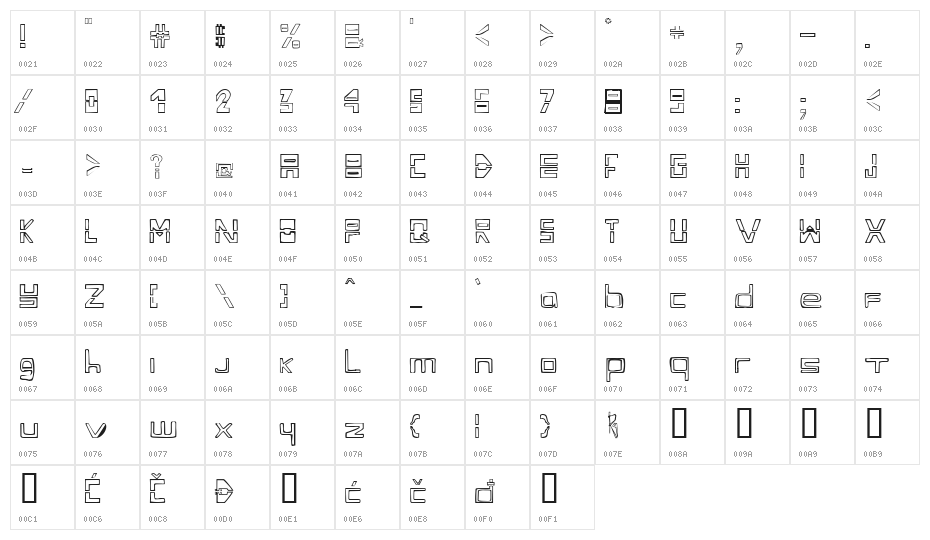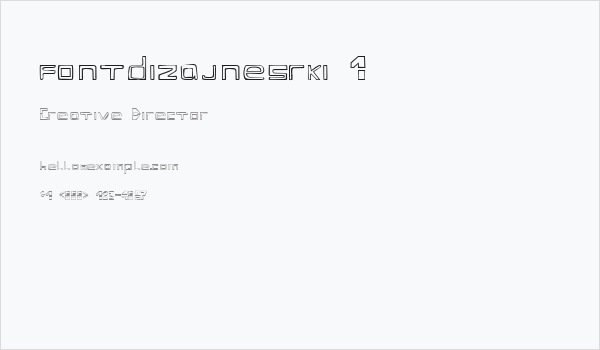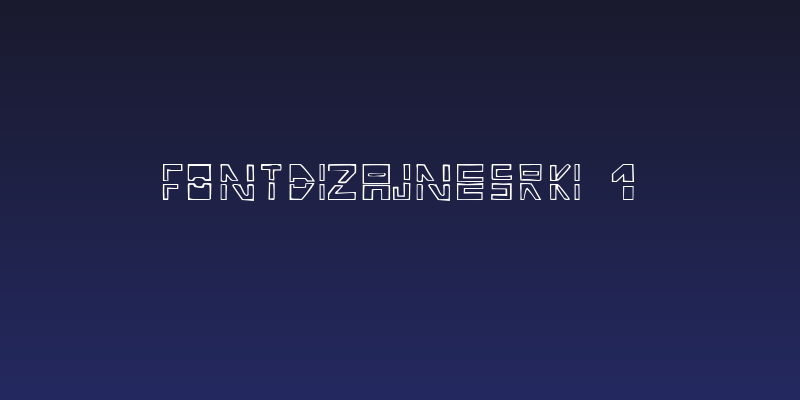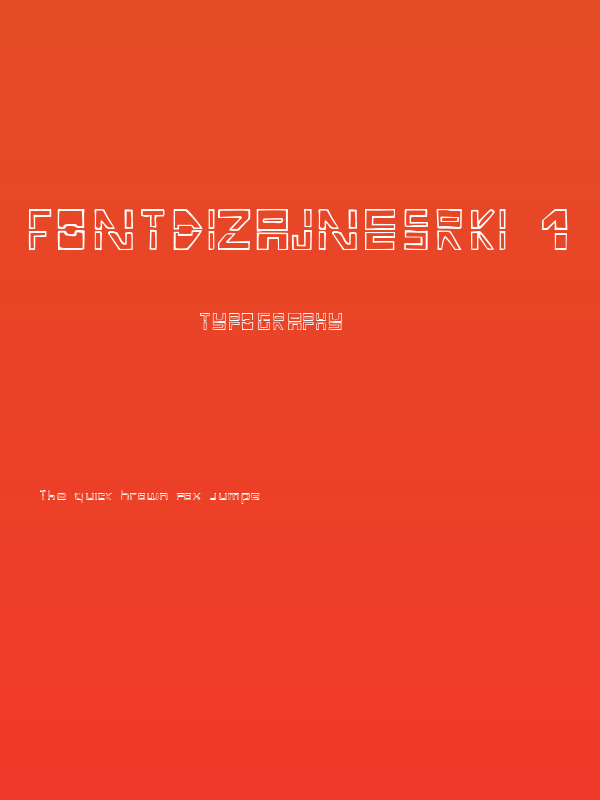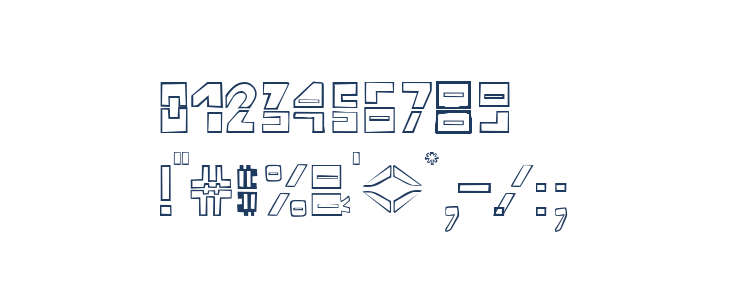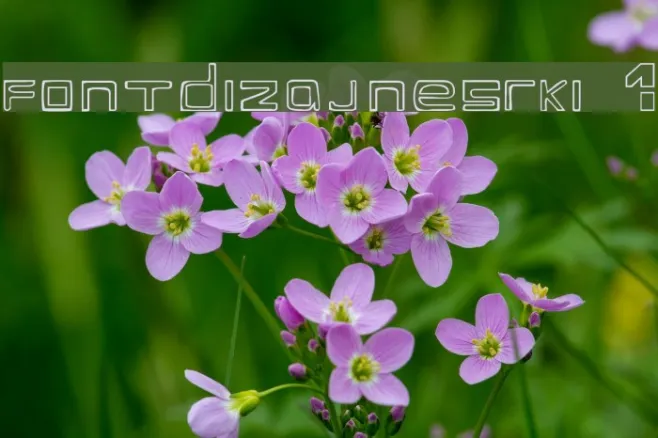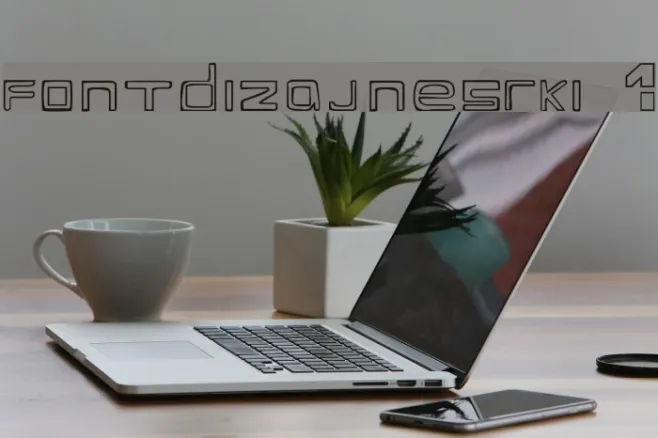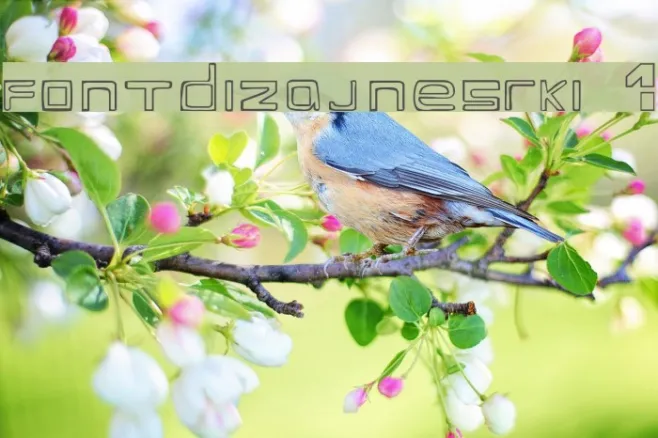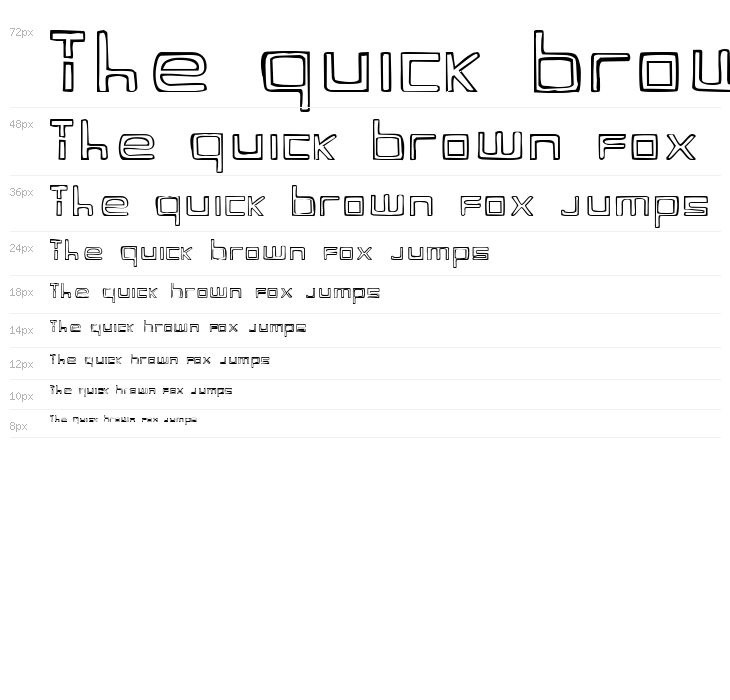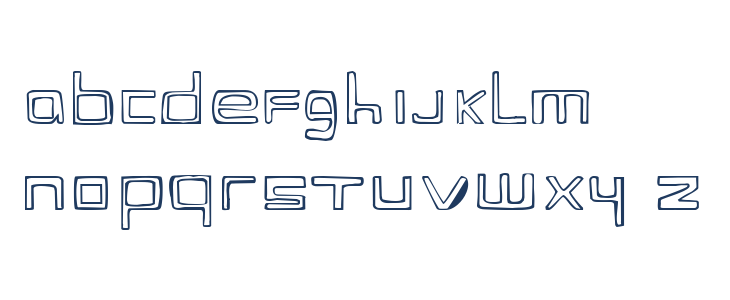
fontdizajnesrki 1 Font
fontdizajnesrki 1 Description
This font features a geometric and futuristic design, characterized by its bold, outlined letterforms. Each character is constructed with straight lines and sharp angles, giving it a modern and tech-inspired appearance. The uppercase and lowercase letters maintain a consistent style, with unique shapes that make them stand out. The numbers and special characters follow the same design principles, ensuring uniformity across all elements. This font is ideal for projects that require a contemporary and edgy look, such as technology branding, sci-fi themes, or digital art.
| Proposed Projects | Ideal for technology branding, sci-fi themes, digital art, and modern advertising. |